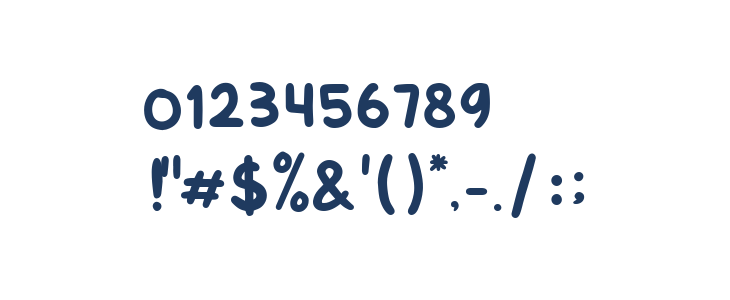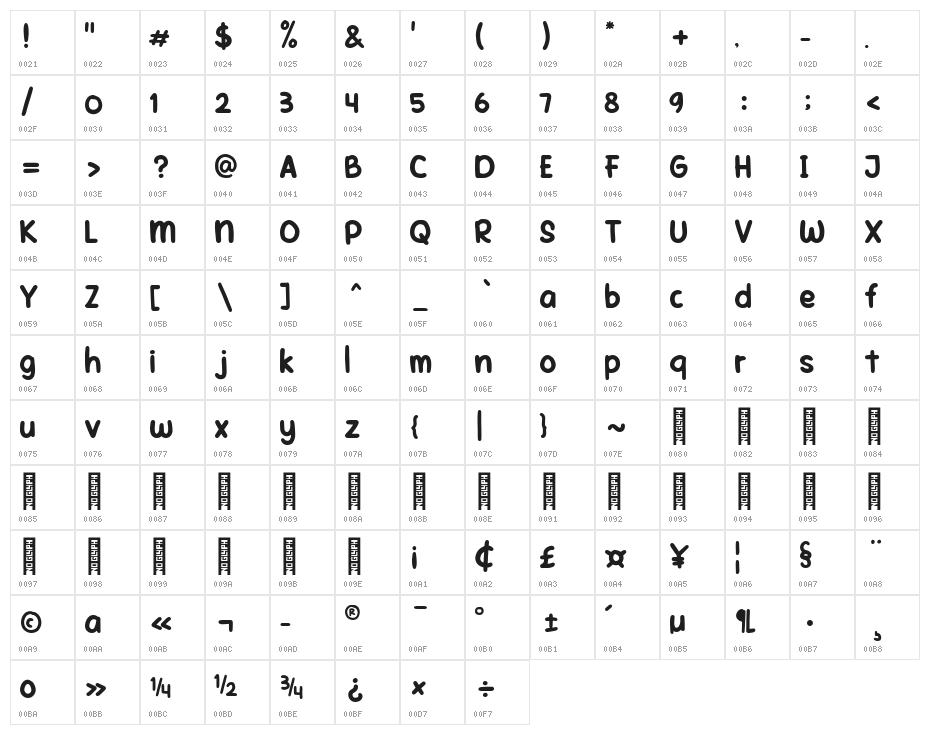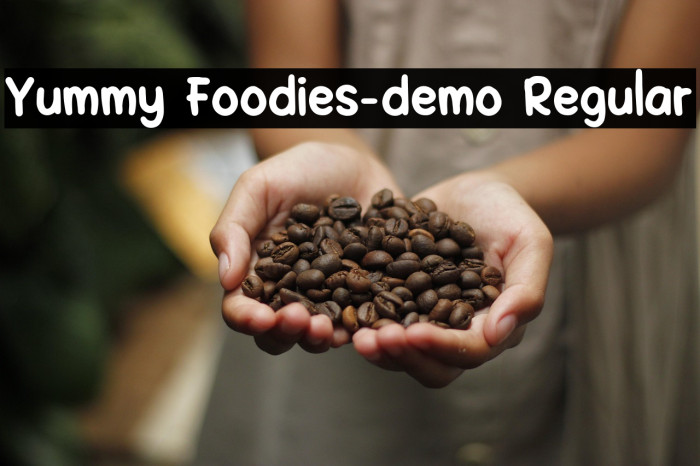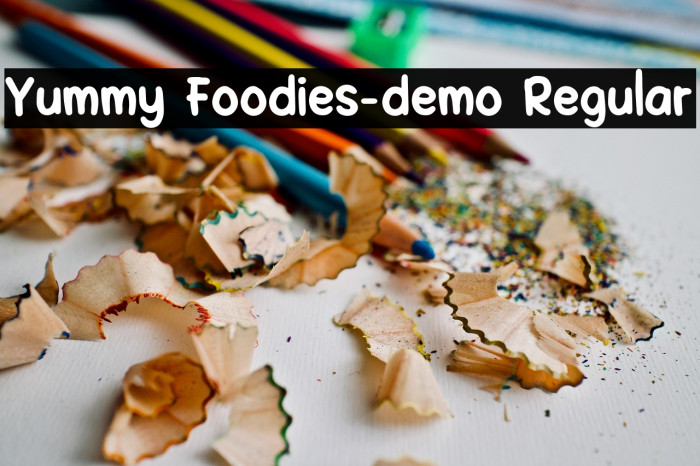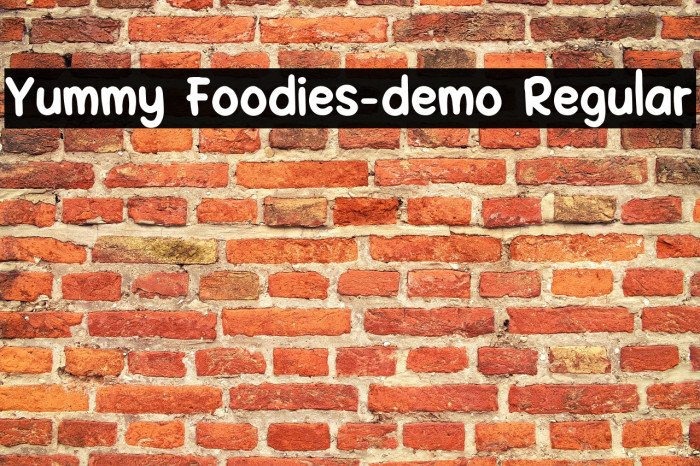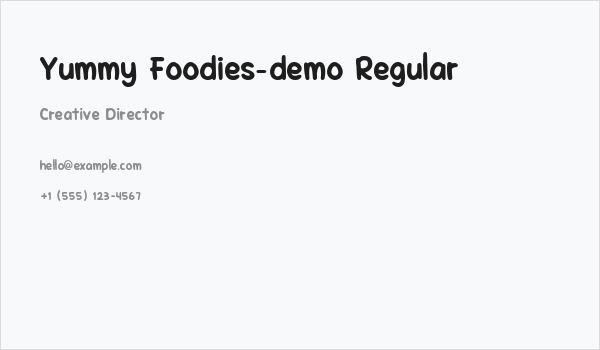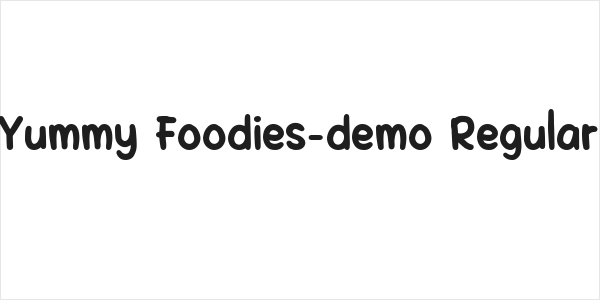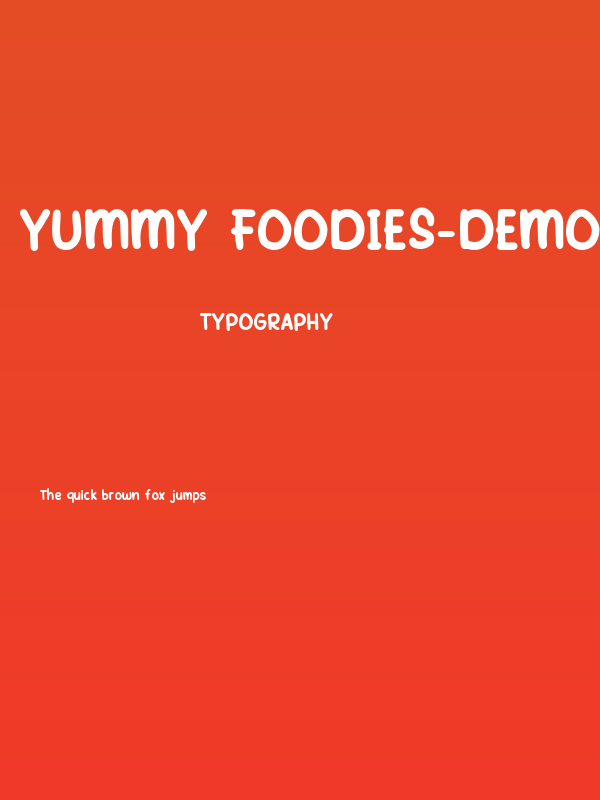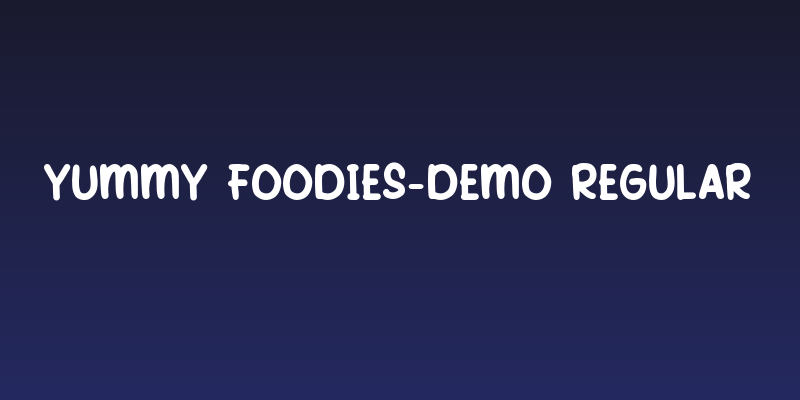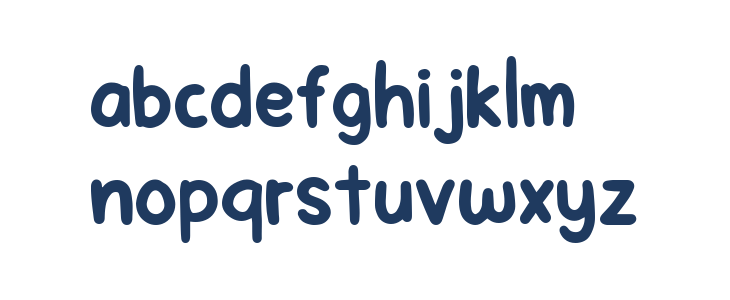
Yummy Foodies-demo Regular Font
Yummy Foodies-demo Regular Description
This playful and rounded font exudes a friendly and approachable vibe, making it ideal for casual and fun projects. The characters are bold with a consistent stroke width, giving them a strong presence. The rounded edges and slightly irregular shapes add a touch of whimsy, making it perfect for projects that require a lighthearted and informal tone. The font maintains good readability with its clear and distinct letterforms, suitable for both headlines and short text blocks. Its unique style makes it stand out, adding a personal touch to any design.
| Use Case | Headlines, Logos, Short text blocks |
| Proposed Projects | Ideal for children's books, playful branding, food packaging, and casual invitations. |